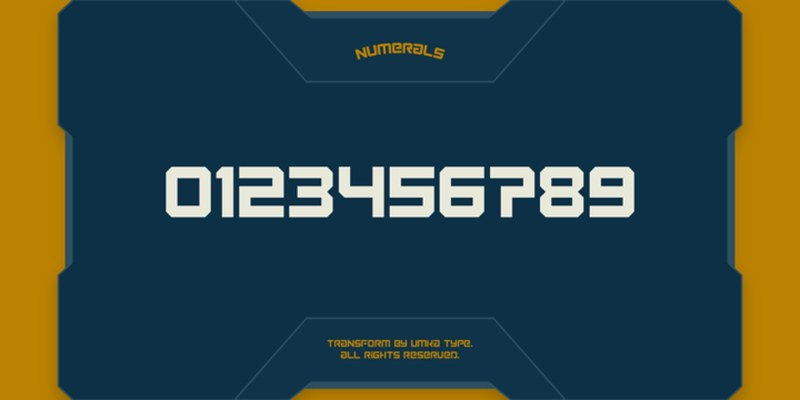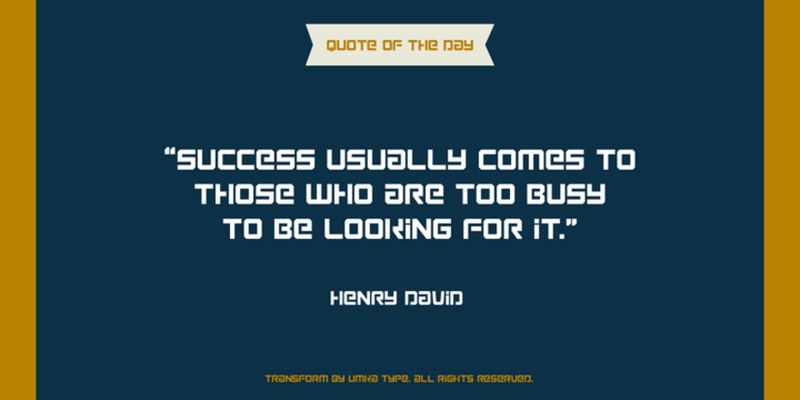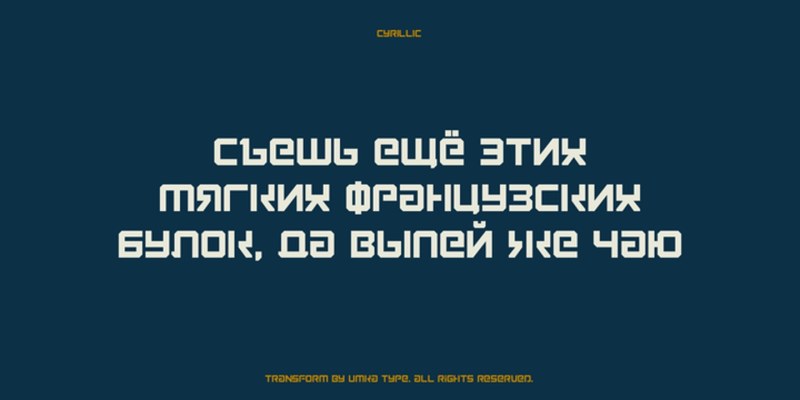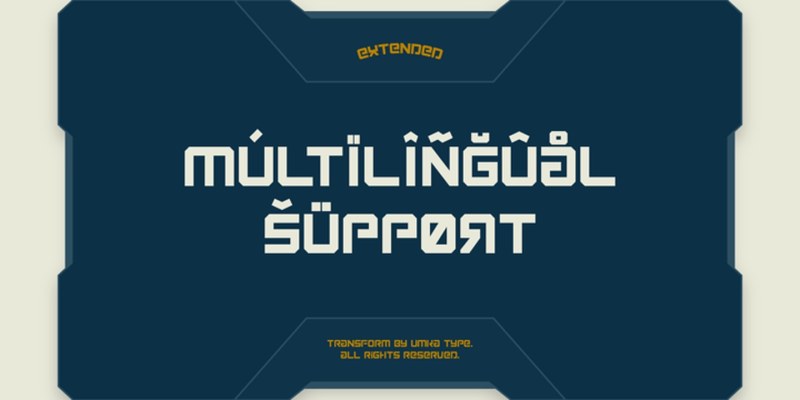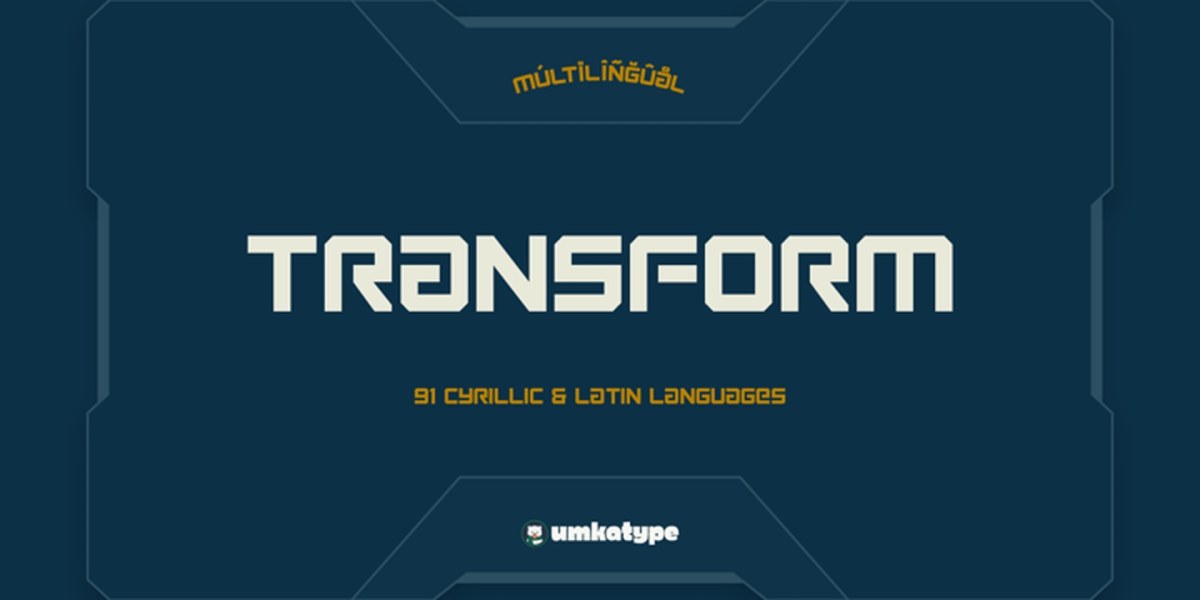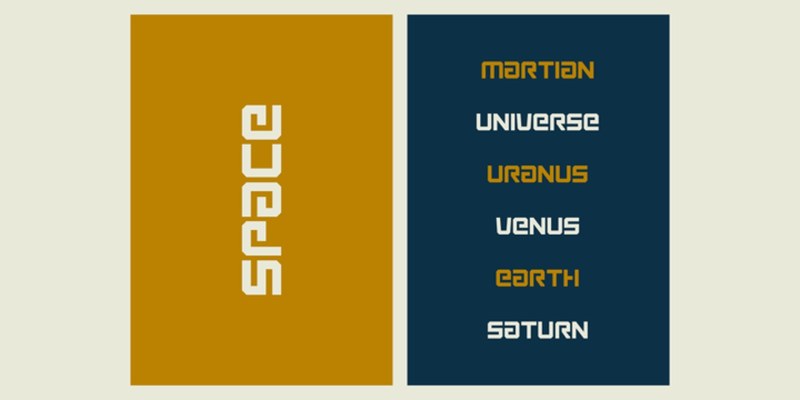
Transform Font
Transform – A Display Font : Transform is a carefully crafted display font. It has Extended Latin and Cyrillic characters. It created for poster, web, brand and social m…
Transform – A Display Font : Transform is a carefully crafted display font. It has Extended Latin and Cyrillic characters. It created for poster, web, brand and social media designs.
Where Transform Font works best
Transform Font is built for size: event posters, hero headlines and billboard-style layouts.
High contrast display type like Transform Font reads instantly in thumbnails and motion graphics.
What is Transform Font good for?